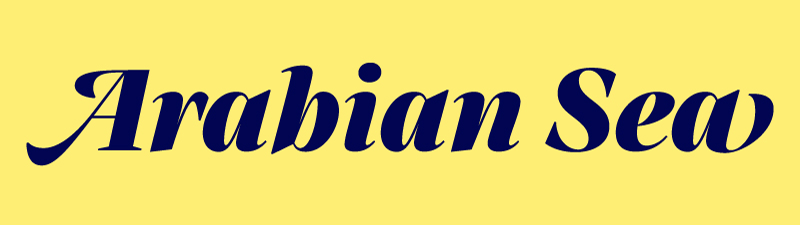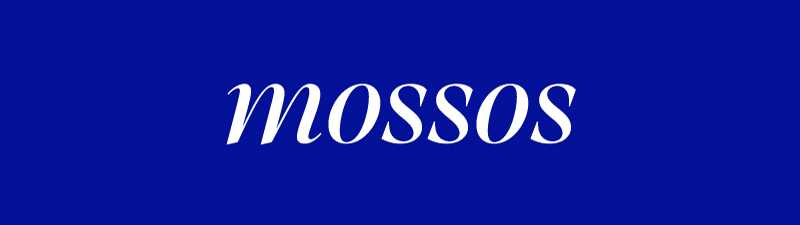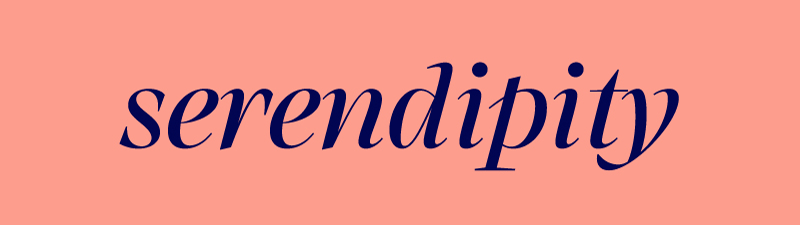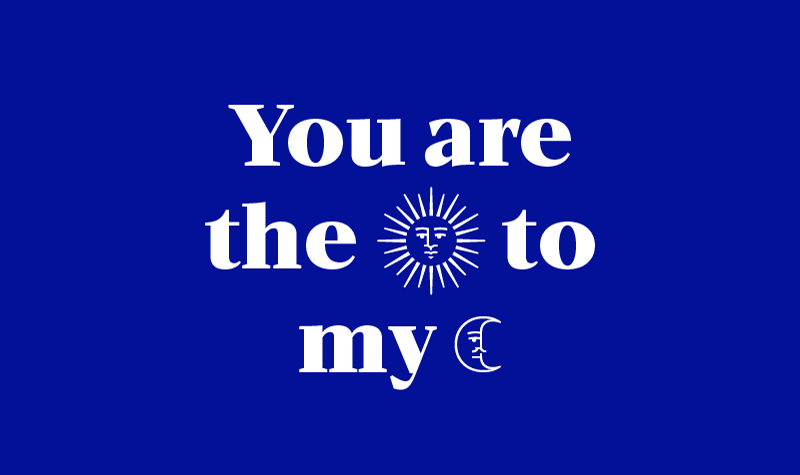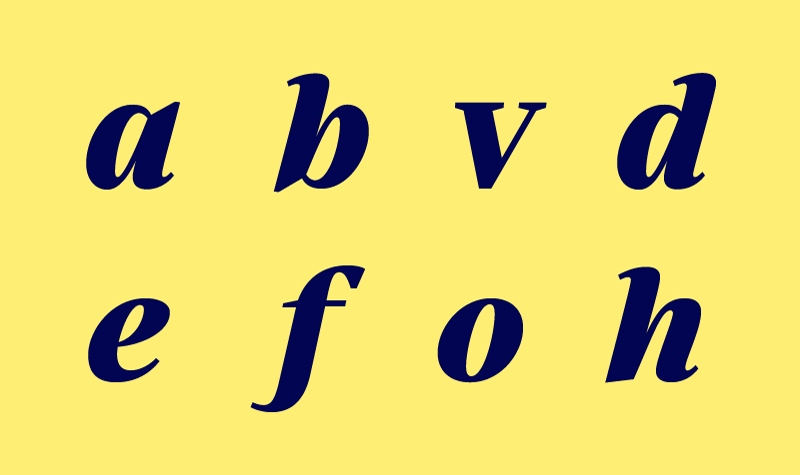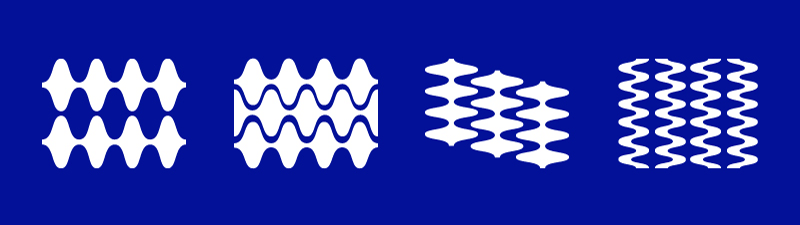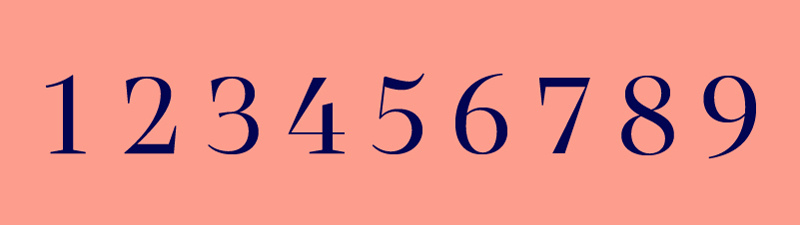
Atlante: taming the stormy sea
Yes, the images are beautiful. And yes, the typeface is as useful as it is beautiful. As an introduction to Atlante, read the designers’ own words that burst with passion, thoughtfulness, and commitment to their best work — even through the years and “rough seas” of redesign.
Because Atlante is such a full-featured font family, Yorlmar Campos and Martín Sesto wrote this introductory article as a proper introduction to go beyond the normal descriptive website text. Atlante’s design began with calligraphic extremes: the italic swashes that filled old maps. Over the course of more than four years, it has been tamed into something to handle all kinds of text while remaining a scene-stealer in display formats. It’s packed to the brim with special features for those who love to control and imbibe in each particular detail. And Atlante is available now for your viewing and design pleasure.
Atlante’s Background
Atlante began with a digital sketch inspired by the italic letters we had seen in maps made during the late sixteenth and early seventeenth centuries by the cartographer and geographer Abraham Ortelius. We found fascinating the hybrid structure of the letters: the main strokes were typical of the flat pen while the decorations and flourishes had an appearance associated with the flexible pen stroke. We cannot be sure that they were originally drawn by mixing the two pen tools to create each character, but we embraced this concept in our first digital sketches. This hybridisation was approached as an integral system, which is why the roman and italic are so different — to emphasise their differences while letting them coexist naturally.
Connected letters used as inspiration in Atlante, also from the ‘Theatrum Orbis Terrarum,’ 1570.
The project took its own course from that cartographic idea and morphological hybridisation. We let our minds wander around the practical implications of ‘facing the sea’ to develop cartographic maps for someone like Abraham Ortelius; these thoughts led us to another place... the one made of fantasy elements that were not mapped, such as the mythical continent Atlantis. And this is how Atlante was named.
Naturally, many elements evolved through different stages of maturation and distillation from the early sketches to the final result. From general things like reducing the length of the serifs or the incline of the italics, to more particular details like the lowercase ‘y’, which had too much personality for continuous reading. (We opted to keep it as an alternate character.) The final design is probably best described as eclectic and hybrid.
Changes to lowercase letter z.
Changes to lowercase letter v.
Changes t lowercase letter s.
Changes on lowercase letter f.
Changes on capital letter Q.
Changes on alternate capital letter A.
Uprights and italics, similitudes and differences
Atlante was initially an italic typeface to be used in headlines, large body copy, and short words, highlighting the elegance and appeal that a large word would need. Its somewhat condensed shape and high contrast between thin and thick were features born from the need to be appealing. But when we decided that the typographic system had to be expanded to incorporate other uses such as small body copy for continuous reading, we added a counterpart upright that would respond to those needs.
The italics were based on the concept of cursiveness, thereby gaining a greater degree of expressiveness and spontaneity, as opposed to the more stable and calm uprights. While the uprights are based on interrupted construction — that is, slower strokes and greater control — the italic emphasises how it is possible to achieve greater fluidity and cursiveness with fewer interruptions in the ductus. This concept of continuous construction can be seen in the forms and bifurcations of a, b, d, e, g, h, n, m, r, q, u, v, w plus the terminals in some numbers (2 and 3), and various currency signs.
The italic also contains other features that provide cursiveness and are related to handwriting: a descending stroke in the letter f, inverted weight in the letter z, plus the noticeable increase in the speed of the curves. Another aspect contributing to fluidity is how the entry and exit strokes relate to the arrival from the previous letter and its departure to the next.
The italic capitals construction is similar to the uprights but slanted, except for the Q, whose shape and tail are cursive. An alternate set of ornate uppercase letters were added to provide an additional degree of personality.
The cursive italic reinforces the concept of fluidity by including alternative characters with a fast curve ratio, ligatures related to manual writing, and ornamented lowercase to be used at the beginning and/or end of a word or sentence. Its usefulness is tangible in highlights, logos, complex compositions, and in titles with large text.
Range of use
Atlante went through three stages of development. Initally, Atlante was a small, cartographic family with only a display italic and its matching upright (rather than the other way around, which is most common).
In the second stage, we explored the possibility of extending its range by adding thinner and heavier weights. This took a long time to develop. When it was finished, we felt that it was beginning to function as a comprehensive system, rich in publishing and editorial possibilities.
Ligatures seen in the cursive form of italics (standard ligatures).
Italic ligatures (standard and discretionary ligatures) and alternate lowercase ‘y’ (SS01).
Icon replacements (SS07).
Initial swash characters.
Alternate lowercase characters: cursive forms, terminal, and initial swashes (SS01, SS08, and SS10).
Ornaments and representations (SS07).
Four of Atlante’s five sets of figures: proportional oldstyle, proportional lining, tabular oldstyle, tabular lining.